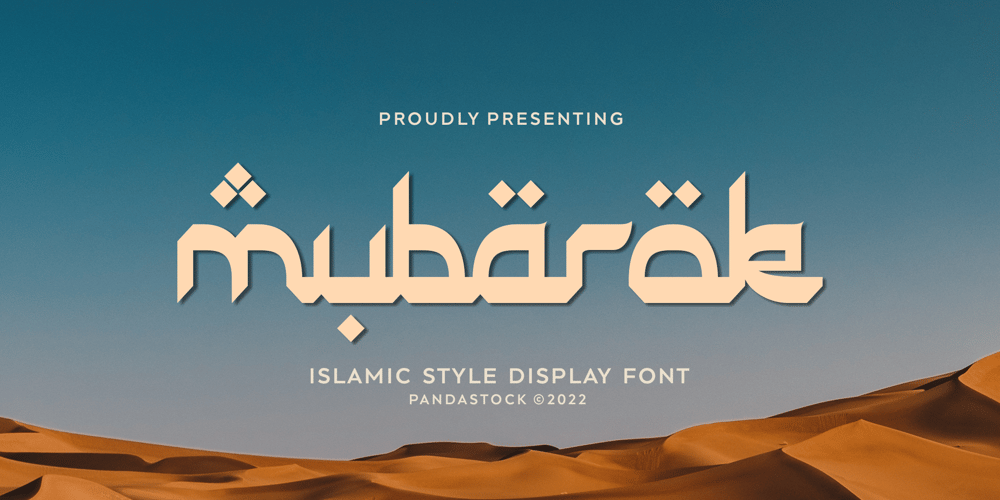
Mubarak
Mubarak font
Mubarak Font Family was designed by Aulia Savira Putri and published by Imoodev. Mubarak contains 1 styles and family package options. Mubarak is an arabic-styled display typeface. This islamic ramadhan arabic font is perfect for any graphic design related to the Islamic style. You will get an Arabic feel to every text you type using this font. Made with Latin characters so that it can be read internationally and does not have to be able to read by Arabic characters. This Islamic font is suitable for a wide variety of projects such as a display font for headings, logo fonts, invitations, branding, book covers, magazine layouts, card, product packaging, product mockup, mugs, posters, labels, editorials, art deco, and any type of advertising purpose.